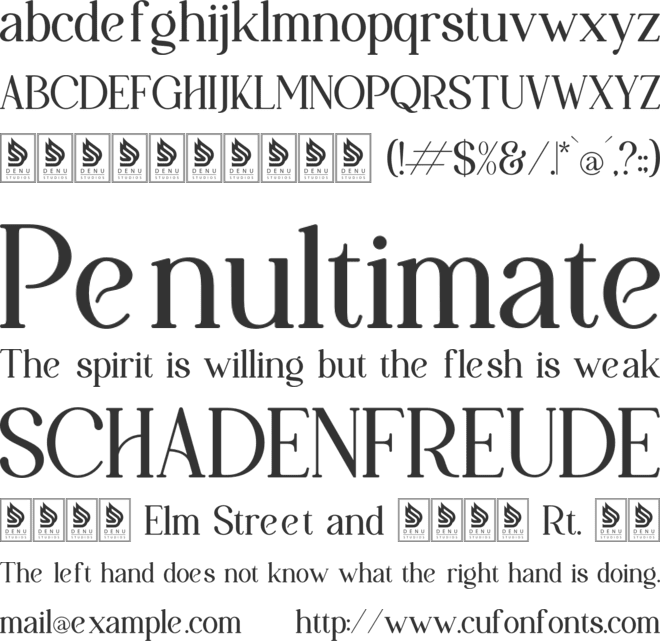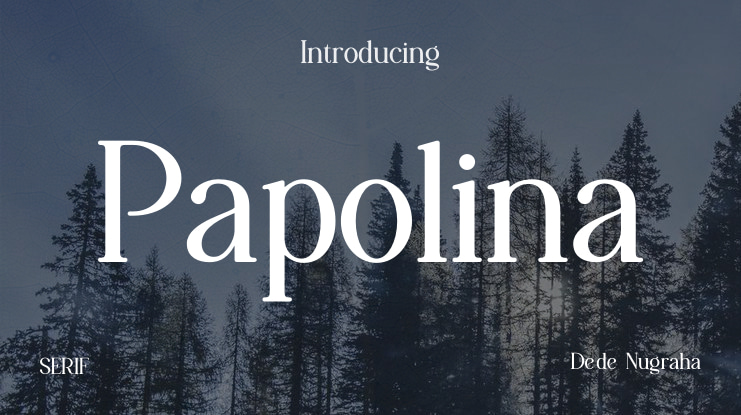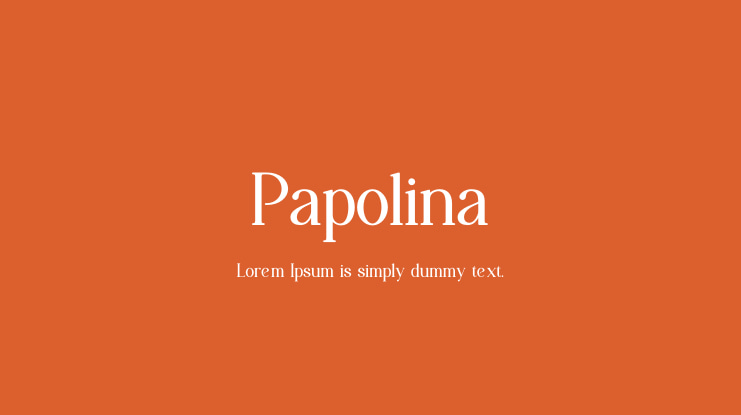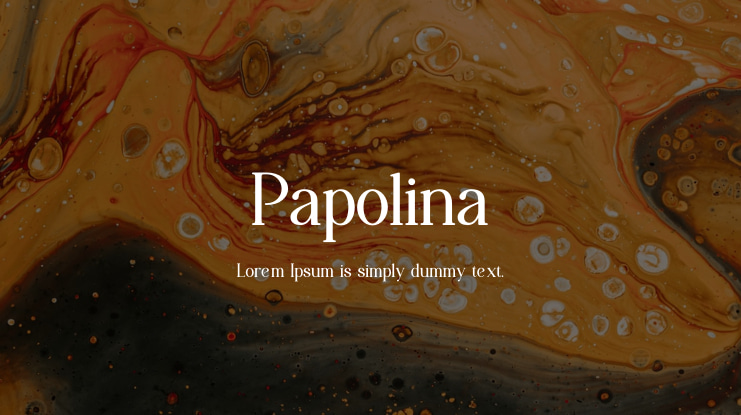
Papolina | Modern Serif Font is suitable for any projects such as: logos, branding projects, homeware designs, product packaging, mugs, quotes, posters, shopping bags, t-shirts, book covers, name card, invitation cards, greeting cards, label, photography, watermark, special events, and all your other lovely projects that need a modern serif taste.